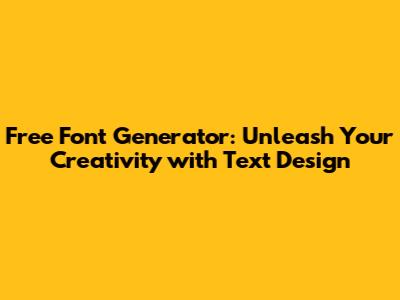
Find a Generator: The first step is to find a generator that suits your needs. There are tons of options out there, so do some research and find one that has a good selection of fonts and customization options. Some popular choices include online font generators and some dedicated text design apps. Look for one that's easy to use and offers the features you need.
Enter Your Text: Once you've chosen your generator, the next step is to type in the text you want to design. This can be anything from a simple word or phrase to a longer sentence or even a paragraph. Experiment with different texts to see how they look in various fonts.
Choose Your Font: This is where the fun begins! Browse through the font library and select the font that best fits your project. Consider the mood and tone you want to convey. Is it playful, serious, elegant, or modern? Choose a font that reflects the message you want to send. Most generators will give you a preview of your text in each font, so you can see how it looks before you make your final decision. Consider pairing fonts for a more interesting effect. For example, a bold headline font with a more delicate body font.
Customize Your Design: Once you've chosen your font, it's time to customize your design. Most generators offer a range of options, such as font size, color, spacing, and effects. Adjust the size to fit your needs. Experiment with different colors to create a visually appealing design. Adjust the spacing between the letters and words to improve readability or create a specific visual effect. Many generators also offer effects like outlines, shadows, and gradients. These effects can add depth and dimension to your text and make it stand out.
Download or Share Your Creation: Once you're happy with your design, the final step is to download or share it. Most generators allow you to download your text in various formats, such as PNG or JPG. Choose the format that's best for your project. If you're using the text for a website, you might need a transparent background (PNG). If you're sharing it on social media, JPG is usually fine. Some generators also offer the option to share your design directly on social media platforms.
- Wide Variety of Fonts: The most important feature is a good selection of fonts. Look for a generator that offers a wide range of styles, from classic to modern. It should include both serif and sans-serif fonts, as well as script fonts and display fonts. The more options you have, the better.
- Customization Options: A good generator should give you plenty of control over your design. Look for options to adjust font size, color, spacing, and effects like outlines, shadows, and gradients. These options allow you to fine-tune your design and create a unique look.
- User-Friendly Interface: The generator should be easy to use and navigate. The interface should be intuitive, with clear instructions and a simple design. You don't want to spend hours trying to figure out how to use the tool. The simpler, the better.
- Preview Functionality: A preview function is essential. It should show you how your text looks in different fonts and with different customizations. This allows you to see the final result before you download it. Some generators even offer real-time previews, so you can see the changes instantly.
- Download Options: Make sure the generator offers a variety of download options. You should be able to download your text in common formats like PNG and JPG. Some generators also offer vector formats like SVG, which is useful for scalable designs.
- Additional Effects: Some generators offer additional effects like text outlines, shadows, 3D text, and even text animation. These effects can add depth and visual interest to your designs. While not essential, they can be a nice bonus.
- Mobile-Friendly: If you plan on designing on the go, make sure the generator is mobile-friendly. It should work well on smartphones and tablets. Some generators even have dedicated mobile apps.
- Social Media Graphics: Create eye-catching graphics for your social media posts. Use the generator to create quotes, announcements, or promotional text that stands out from the crowd. Experiment with different fonts and effects to match your brand's style.
- Website Headers and Banners: Design unique headers and banners for your website. Use the generator to create text that grabs visitors' attention and reinforces your brand identity. A well-designed header can make a huge difference in the overall look and feel of your website.
- Logos and Branding: Although you usually need a professional designer for a full logo, you can use a font generator to experiment with different font styles for your brand. This can give you a starting point and help you communicate your vision to a designer. The right font can be crucial for your brand's visual identity.
- Invitations and Cards: Design beautiful invitations and cards for special events. Use the generator to create elegant or fun text for birthdays, weddings, or holidays. You can customize the font, size, and color to match the theme of your event.